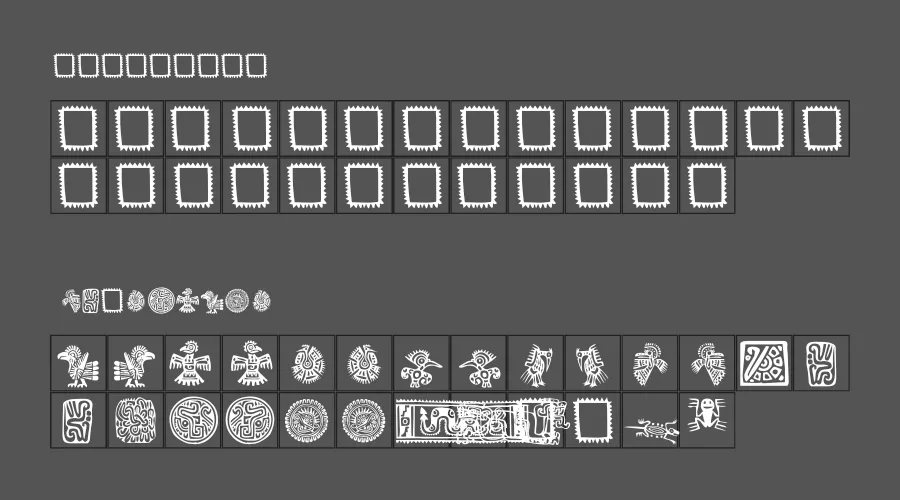
Mexican Ornaments Font
About Mexican Ornaments Font
In this post, going to introduce to you a very famous texture named Mexican Ornaments Font that was designed by Listemageren with the category of dingbats texture family. It is available in a free version with both file formats OpenType and True type.
This attractive texter supports various international languages such as Greenlandic, English, Guarani, Greek, and Haitian Creole. It includes different types of structures such as small letters, capital letters, integers, marks, and many other unique forms of the alphabet set.